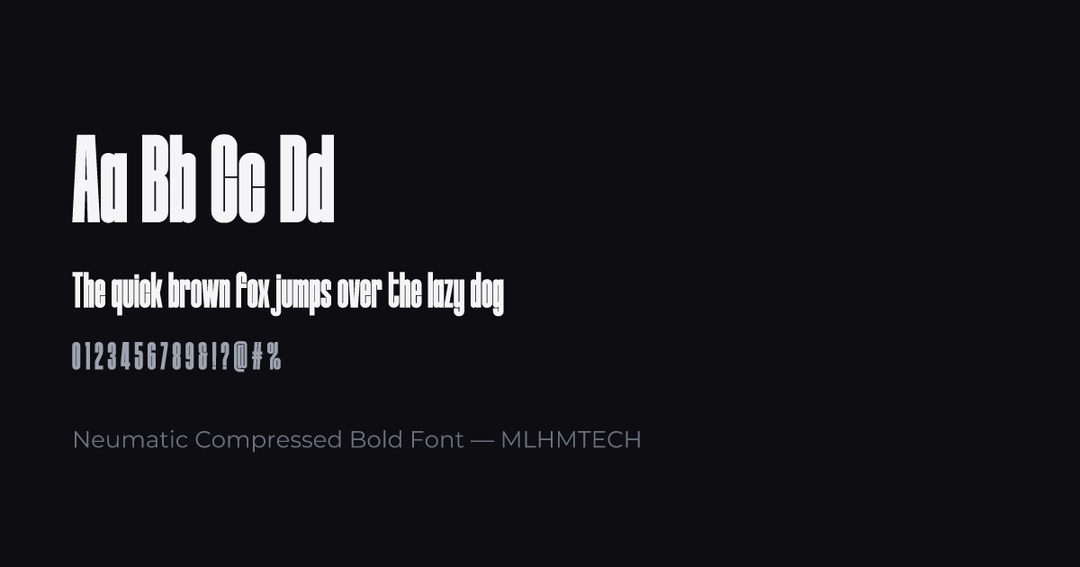
Neumatic Compressed Bold Font
Neumatic Compressed Bold is a condensed sans-serif font with a strong, modern presence. Ideal for headlines, posters, and branding projects.
Neumatic Compressed Bold is a high-contrast, condensed sans-serif typeface that commands attention. Its tight letterforms and bold weight make it perfect for impactful headlines, posters, and branding materials.
This font is part of the Neumatic family, known for its geometric structure and contemporary feel. The compressed style saves space while maintaining legibility, making it suitable for both print and digital designs.